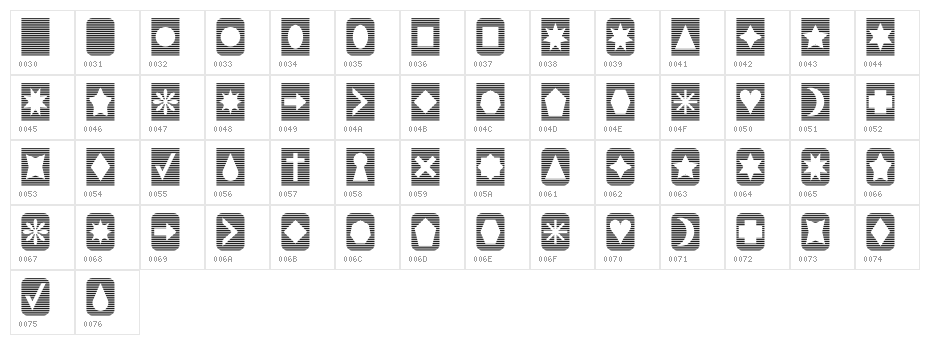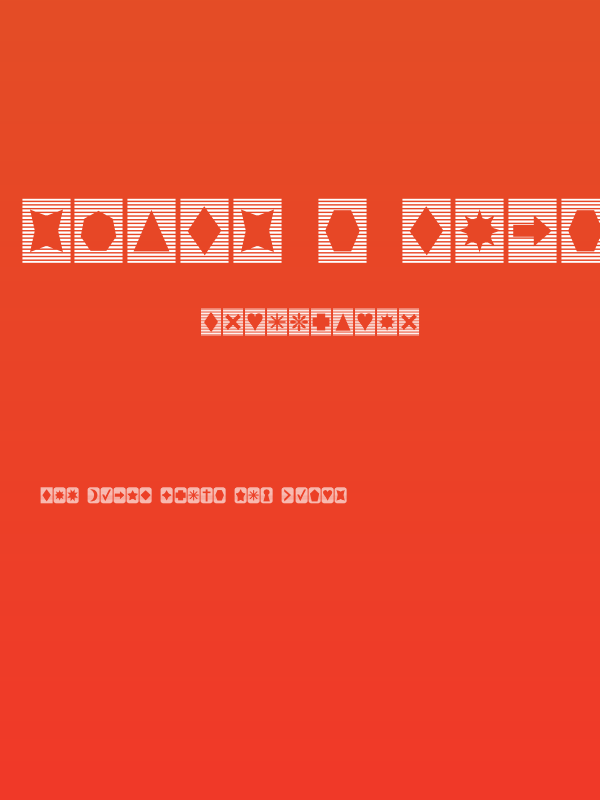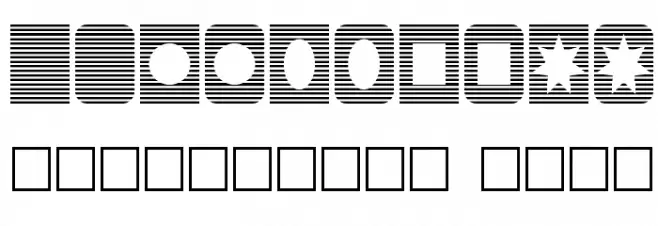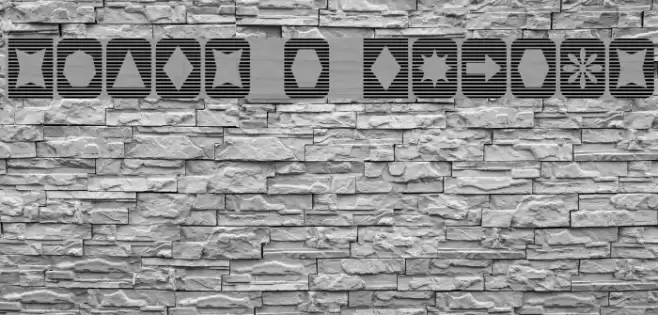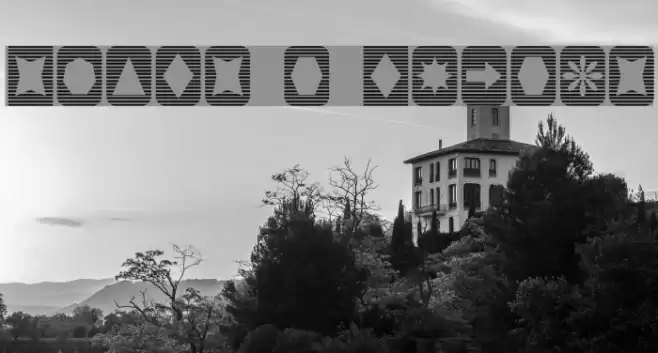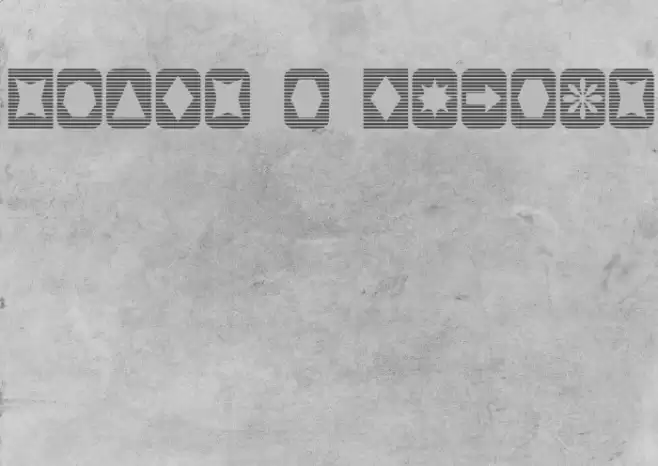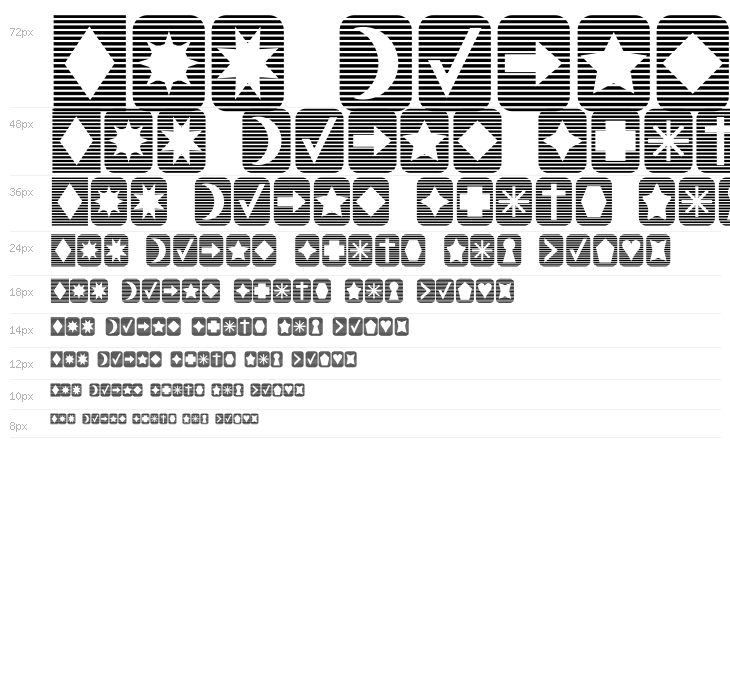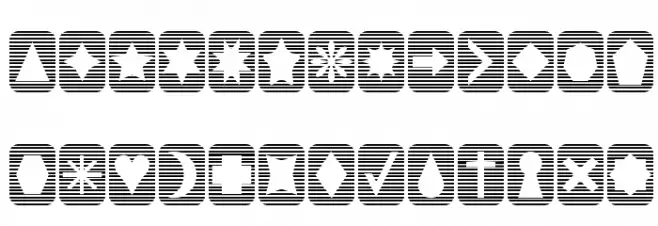
Slats n Things Font
| Caso d'uso | Logos, Decorative elements, Graphic design |
| Progetti proposti | Ideal for use in graphic design projects, such as creating unique logos, decorative borders, or artistic posters. It can also be used in digital art or as part of a branding package for a contemporary and edgy look. |